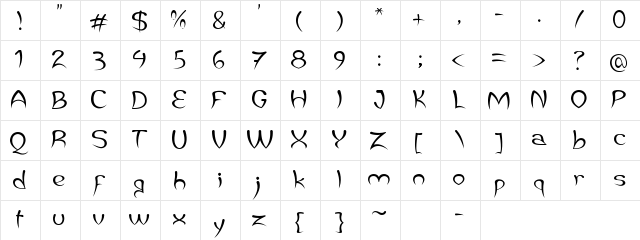
JaleasDemo Regular
Design Context for JaleasDemo Typeface
JaleasDemo is a composed and adaptable typeface that performs quietly and consistently across a wide range of design contexts.